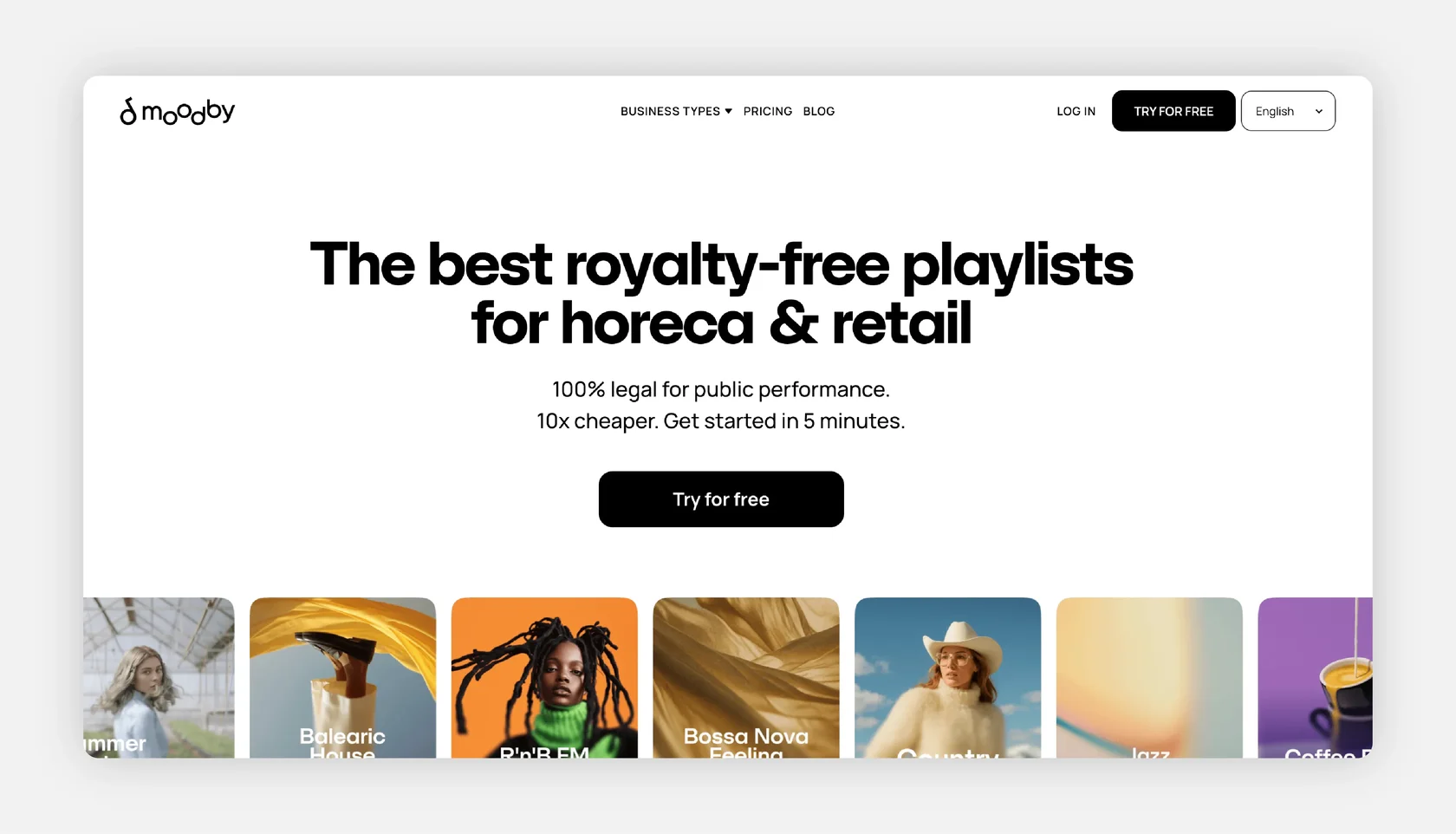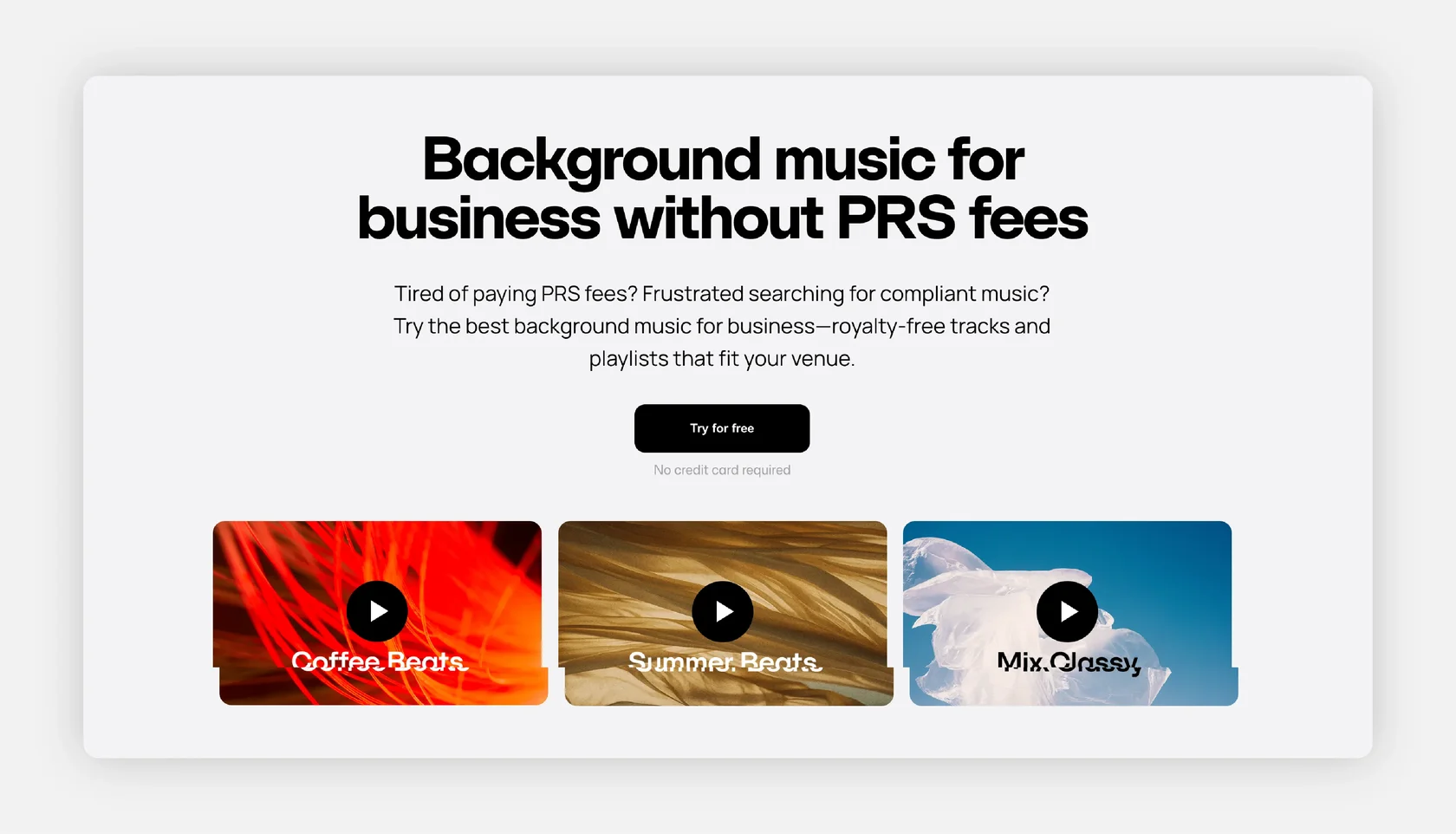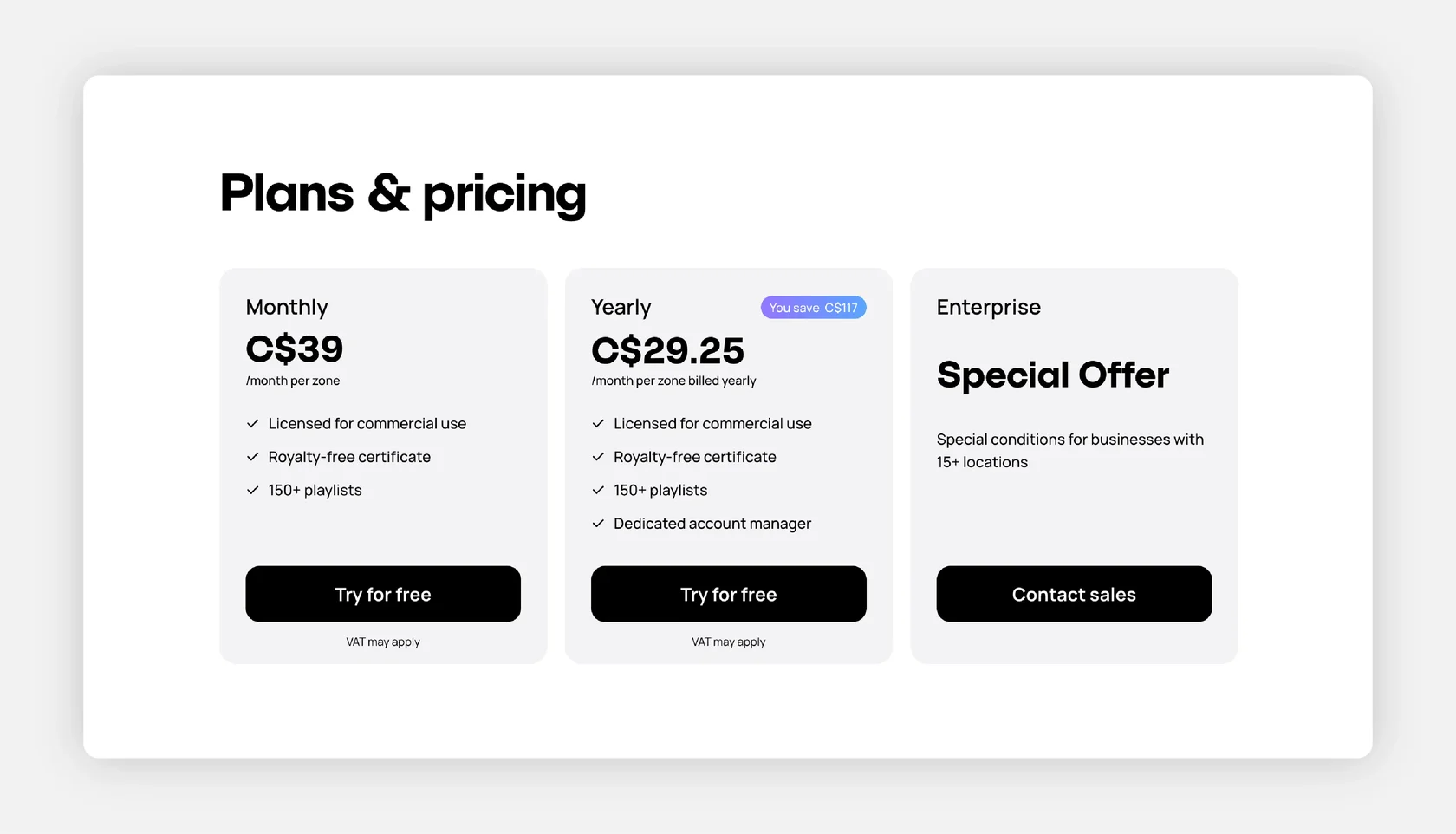
Moodby — Music Licensing for HoReCa & Retail
Font: SFT Schrifted Sans (Medium, Bold).
About the Project:
Moodby is a music-licensing platform providing curated, royalty-free playlists for cafés, hotels, retail spaces, and other public venues. The website highlights its offer—professionally selected playlists, simplified legal compliance, and multi-location control—helping businesses build brand atmosphere without the complexity of traditional licensing.
Why SFT Schrifted Sans?
SFT Schrifted Sans is used in headline typography, giving the interface a contemporary and confident tone. Its straightforward structure helps communicate key value points clearly—affordability, compliant music use, and ease of setup—supporting a polished commercial presence.